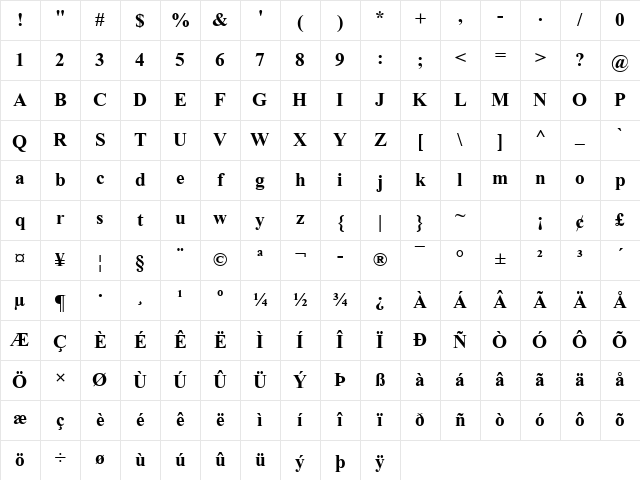
Aparajita Bold
Aparajita Family
Design Context for Aparajita
Aparajita is a composed and adaptable typeface that performs quietly and consistently across a wide range of design contexts. Its bold stroke weight gives it real presence on the page.